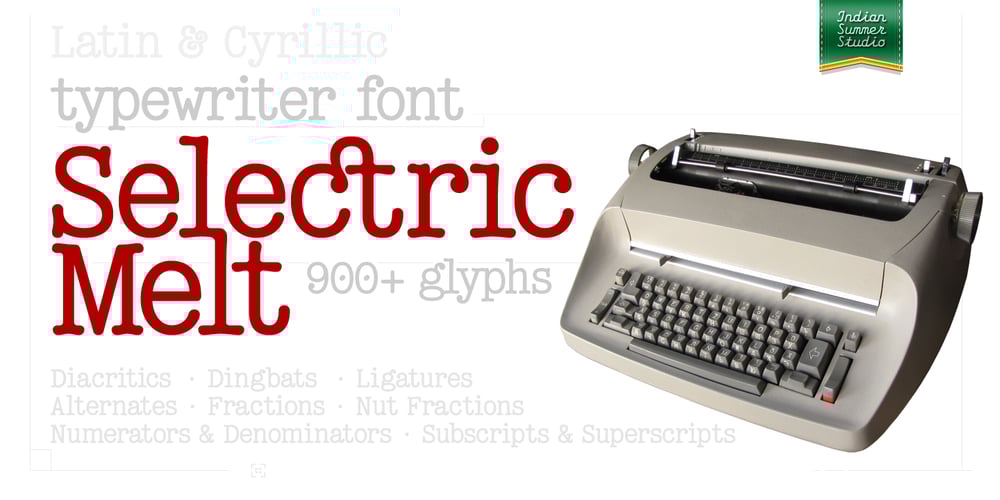
Selectric Melt Font Family was designed by Alexander Bobrov and published by Indian Summer Studio. Selectric Melt contains 1 styles and family package options. A classical 20-th century’s (1900s to 1980s) typewriter font for both text and large display usage, titles, signage…A new thicker version of Selectric (2016), as if typed using not a thin carbon ribbon but a coarse fabric one. Both are available on a different models of Selectrics.Made after rare enough samples of the same style used during 1980s in the USSR.Based on the actual letter proportions of the original typewriter Selectric (2016) (Cyrillic ball). This time not monospaced as before, but proportional.The single known so far previous typewriter vector typeface with this ‘ink blotting’ effect (similarly expanded serifs) as in Dodo (2008) is ITC American Typewriter (1974; by Joel Kaden and Tony Stan) and all its hand drawn analogs from 1980s (and perhaps before).Which, in turn, is resembling ATF Bulletin Typewriter’s (1925, 1933; by Morris Fuller Benton) overall proportions, geometry, and even had some natural ink expands in its paper sample (but not by design, as I see it).